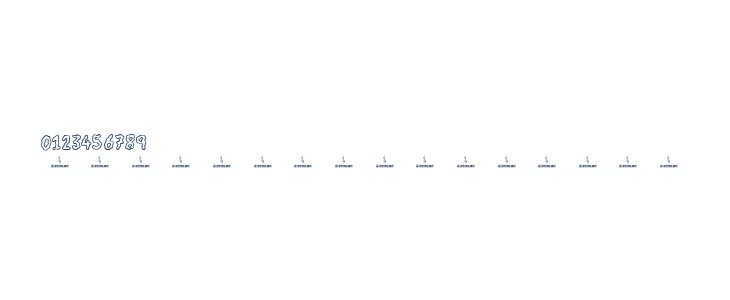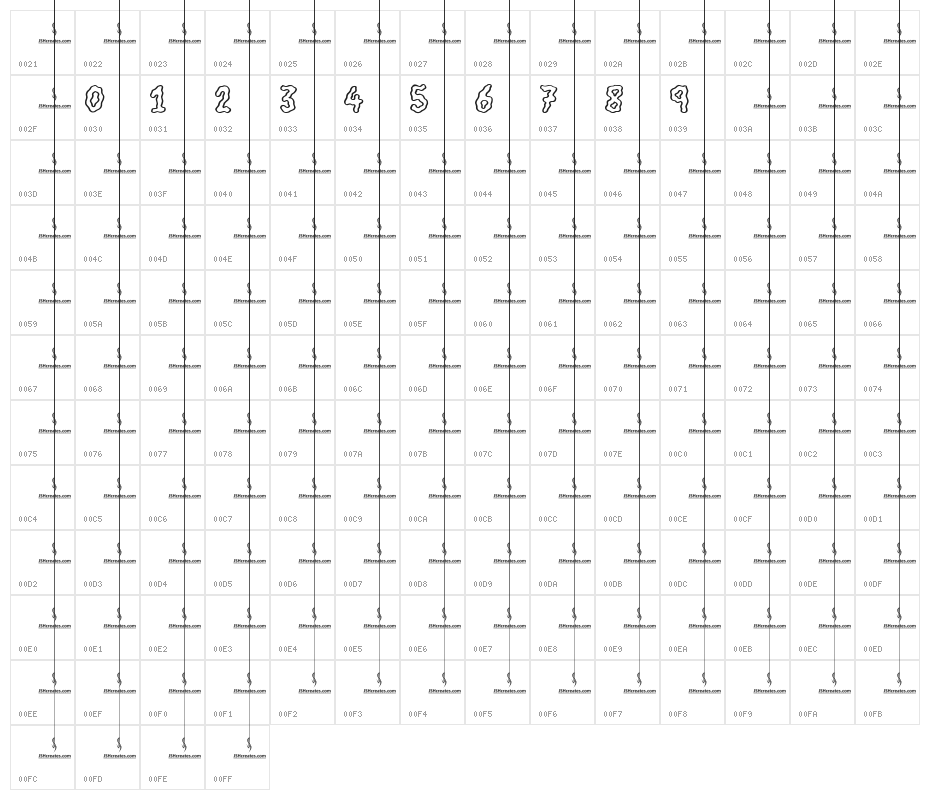
Quaker Shaker extra numbers Font
Quaker Shaker extra numbers Description
This font features a playful and wavy outline style that gives each number a unique, hand-drawn appearance. The characters are bold and have a slightly irregular shape, reminiscent of doodles or sketches. The thick outlines create a strong visual impact, making the numbers stand out prominently. This style is both whimsical and eye-catching, suitable for designs that require a fun and informal touch. The font's distinctiveness lies in its organic, fluid lines that suggest movement and energy, making it ideal for creative and artistic projects.
| Overall Style | Whimsical |
| Use Case | Headlines, Posters, Creative Projects |
| Proposed Projects | Ideal for children's books, playful posters, creative invitations, and artistic designs. |